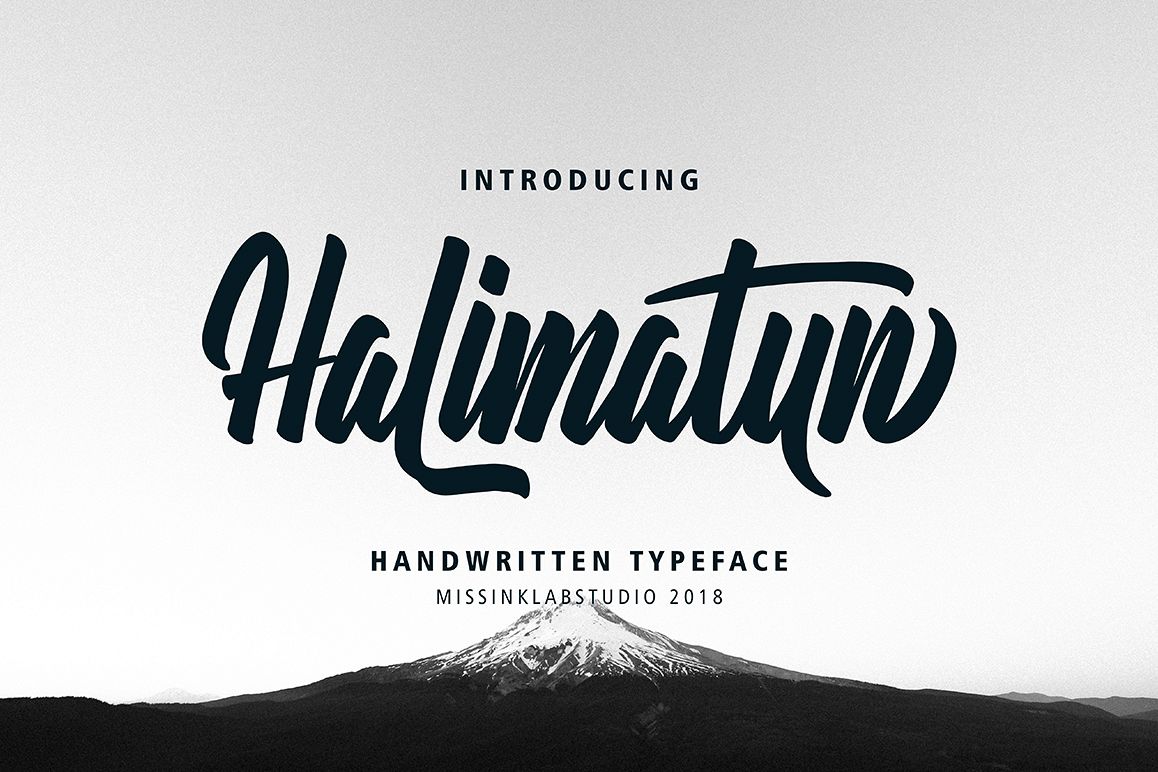
Halimatun
Halimatun-Regular
Halimatun script font with modern style, this font will perfect for many different project ex: quotes, logo, blog header, poster, banding, fashion, apparel, letter, invitation, stationery, etc..